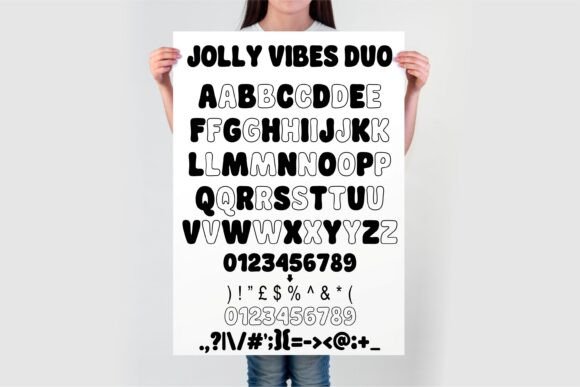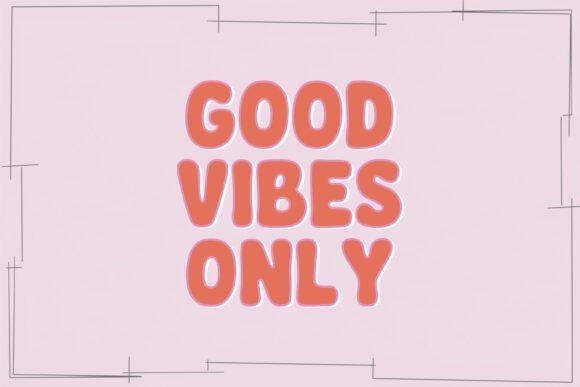
Introduction to Jolly Vibes Duo Font
Introducing Jolly Vibes β€” a playful and bold groovy handwritten font duo that brings retro charm to your designs.
With its thick curves and vintage vibe, this font duo includes both solid and outline versions, perfect for adding a fun, nostalgic touch to t-shirts, posters, social media graphics, and more Whether you’re creating retro-style quotes, party invitations, or branding, this font will make your designs stand out.
Key Features of Jolly Vibes Duo Font
Why Choose Jolly Vibes Duo Font?
Jolly Vibes Duo Font offers exceptional quality and versatility, making it a valuable addition to your design toolkit. Whether you’re creating for personal projects or commercial use, Jolly Vibes Duo Font delivers professional results.